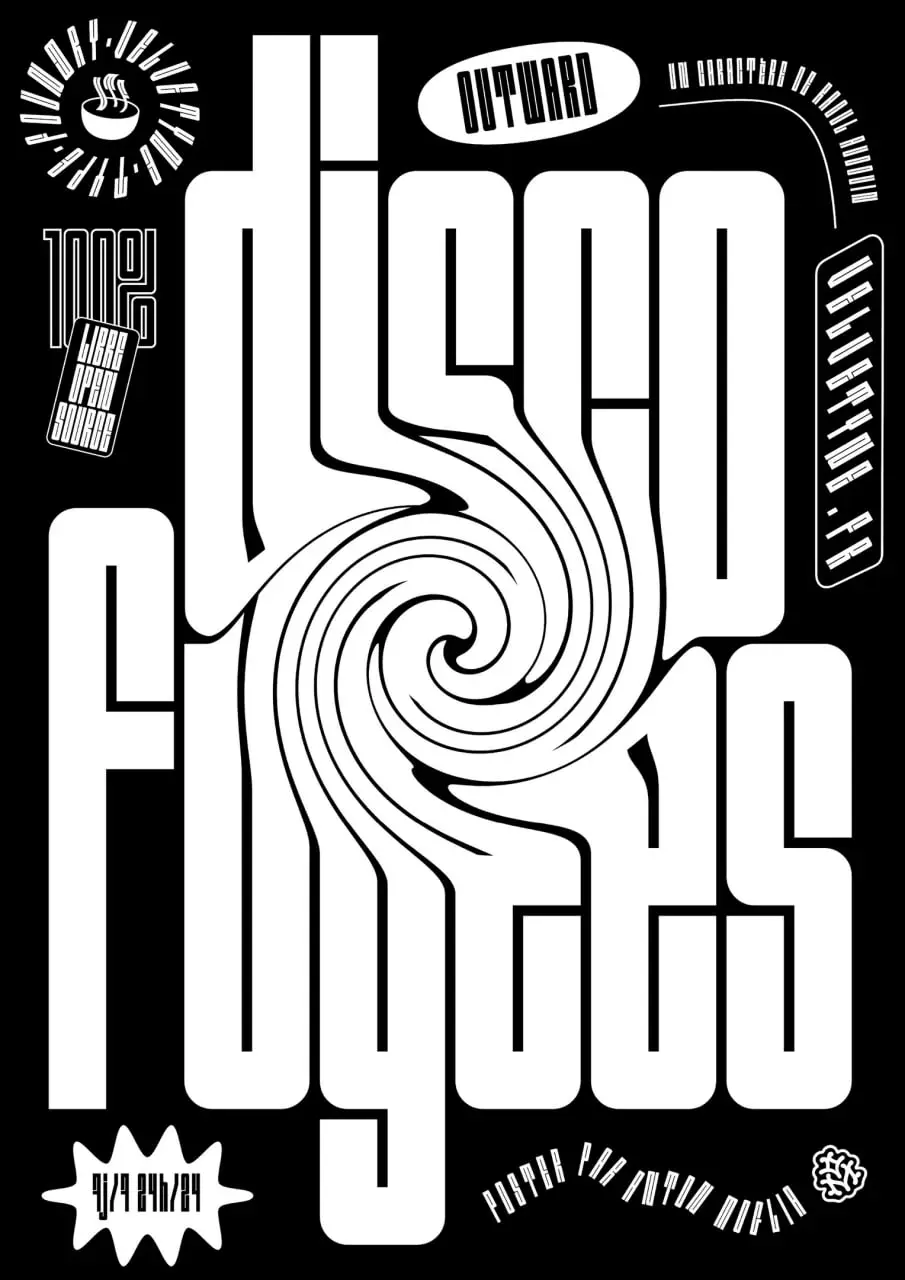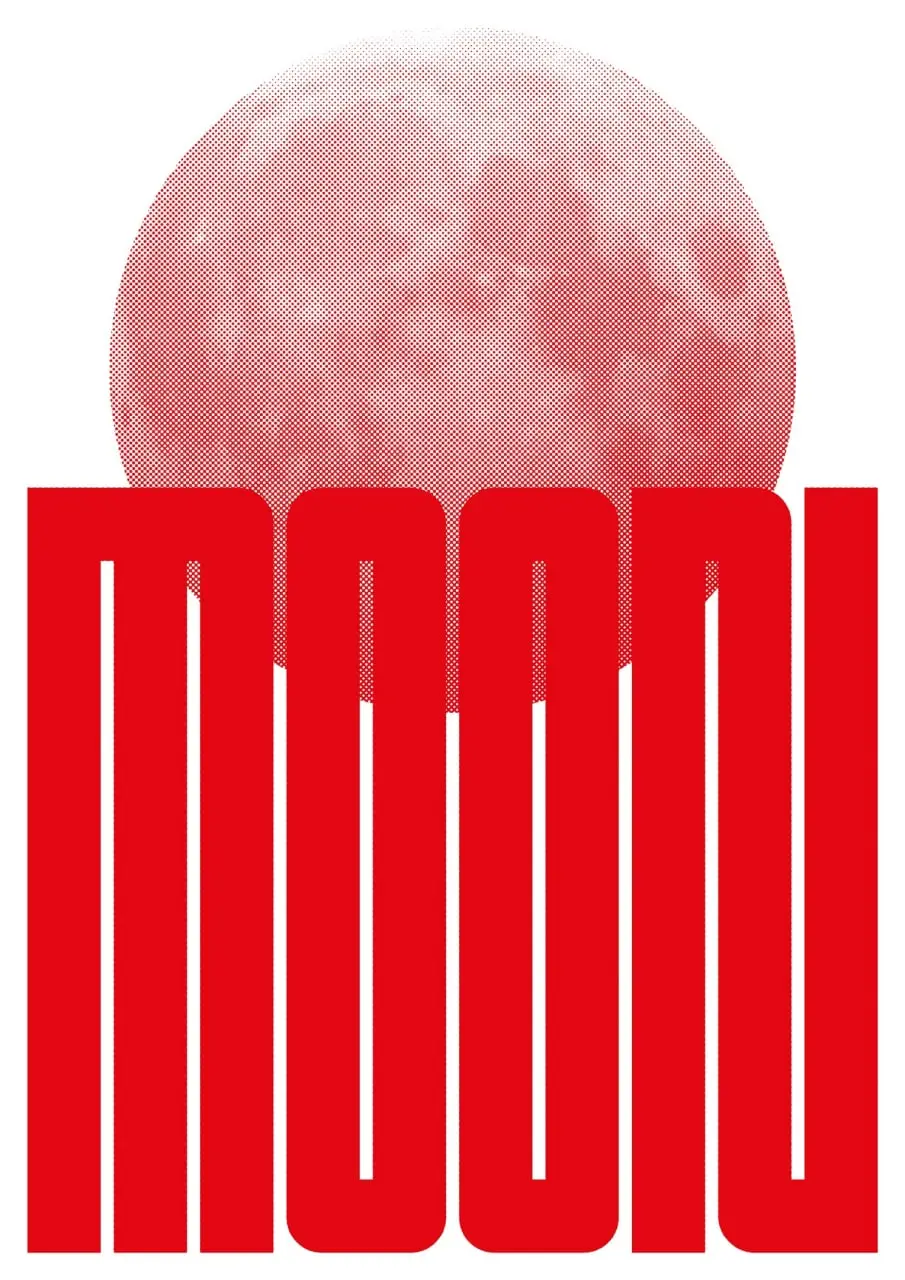
The Raoul Audouin-Outward Font is a unique typeface designed to bring a touch of elegance to your projects. With its distinctive style, this font is perfect for a variety of applications, including branding, logos, web design, and print materials.
- Stylish and contemporary design
- Uppercase and lowercase letters available
Utilize this font for eye-catching headlines, elegant logos, and sophisticated print designs. Its unique character will help your brand stand out in a crowded marketplace.